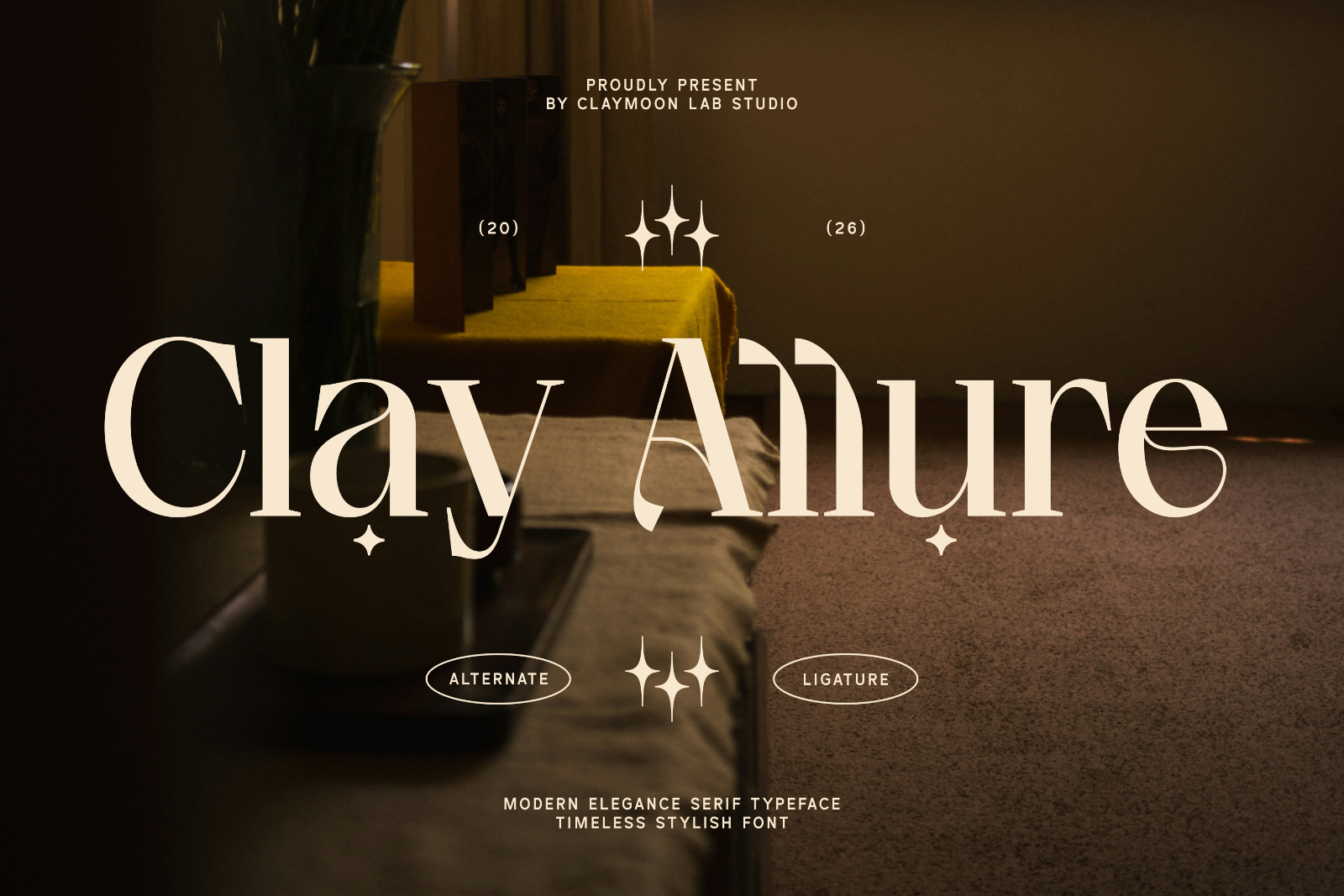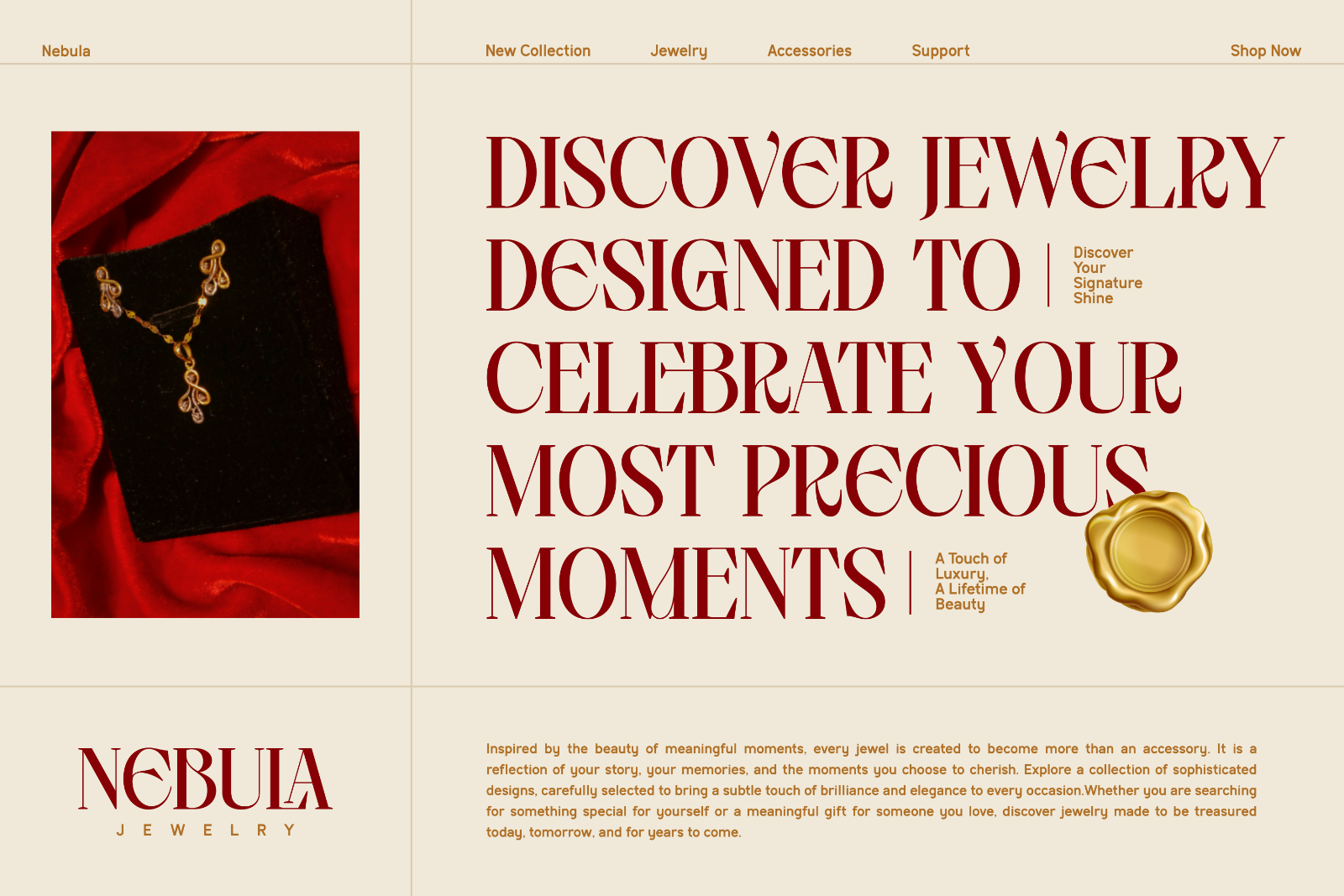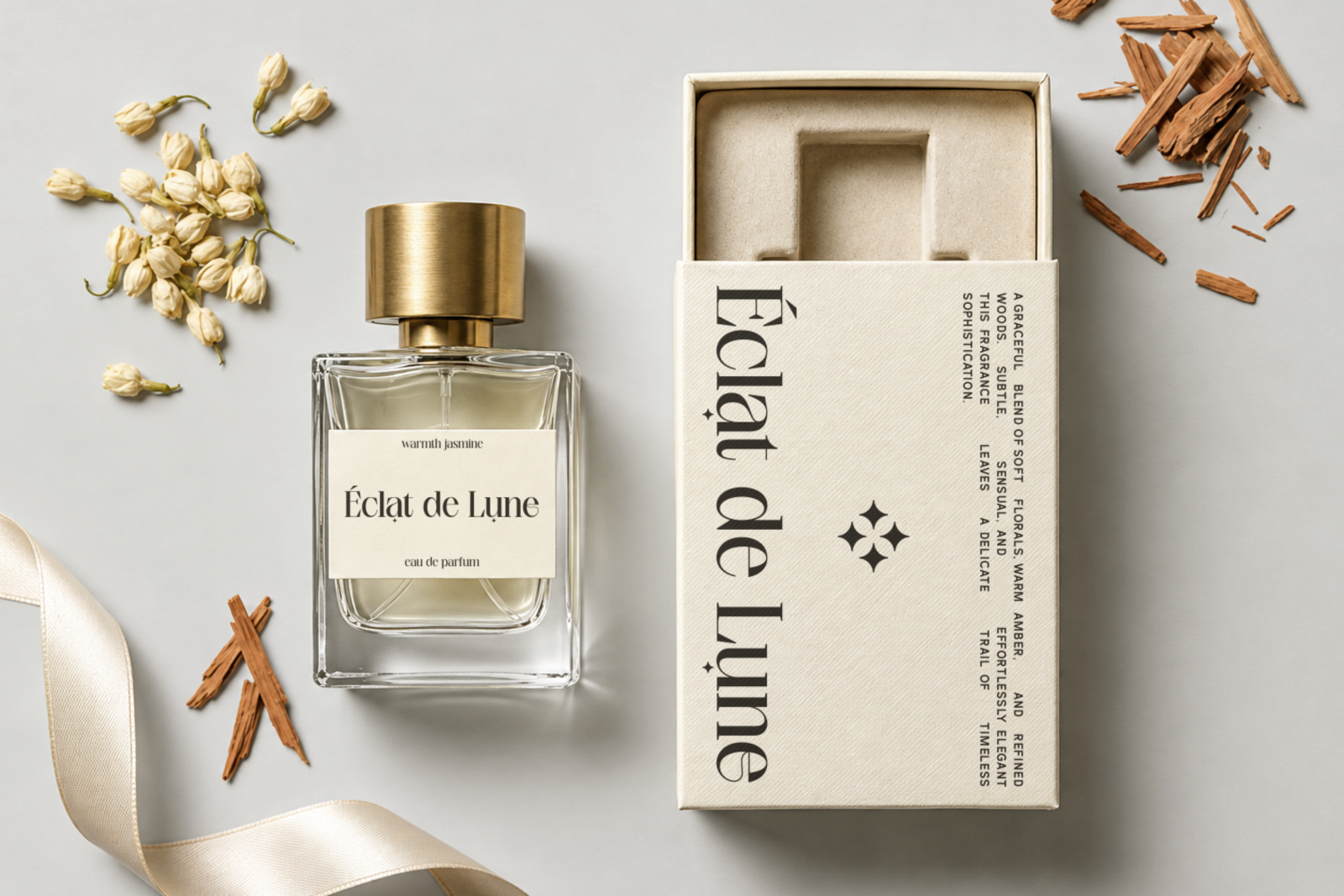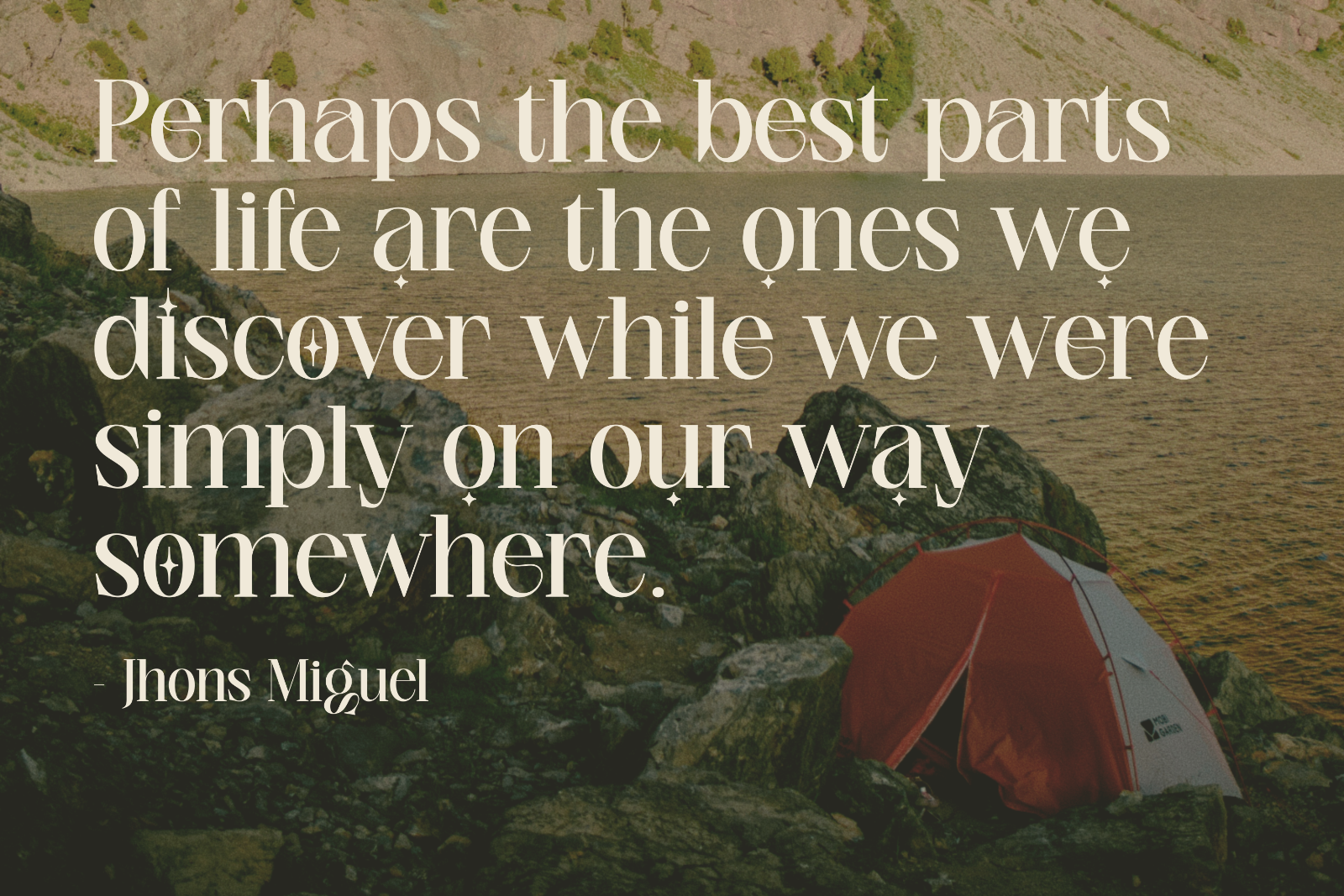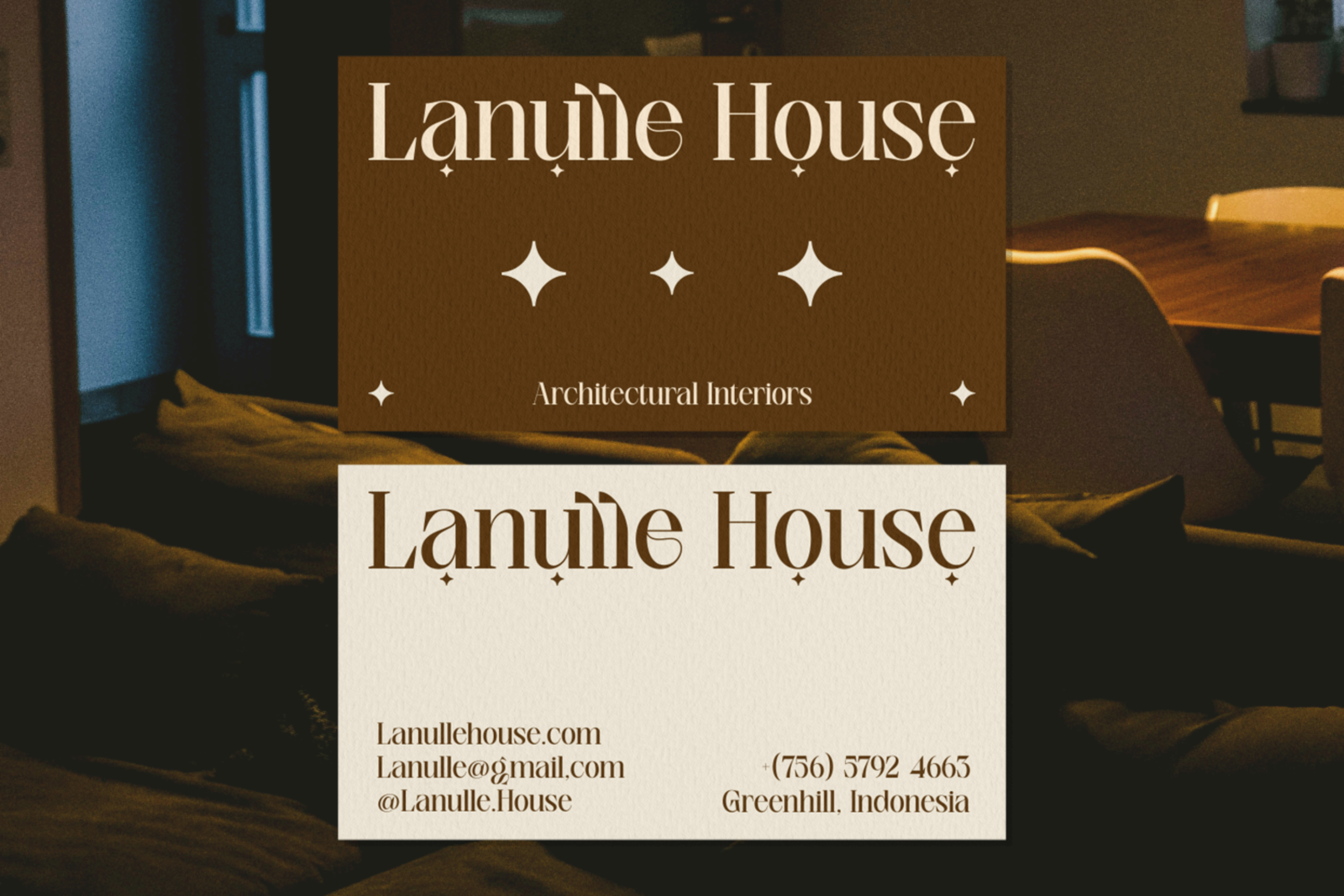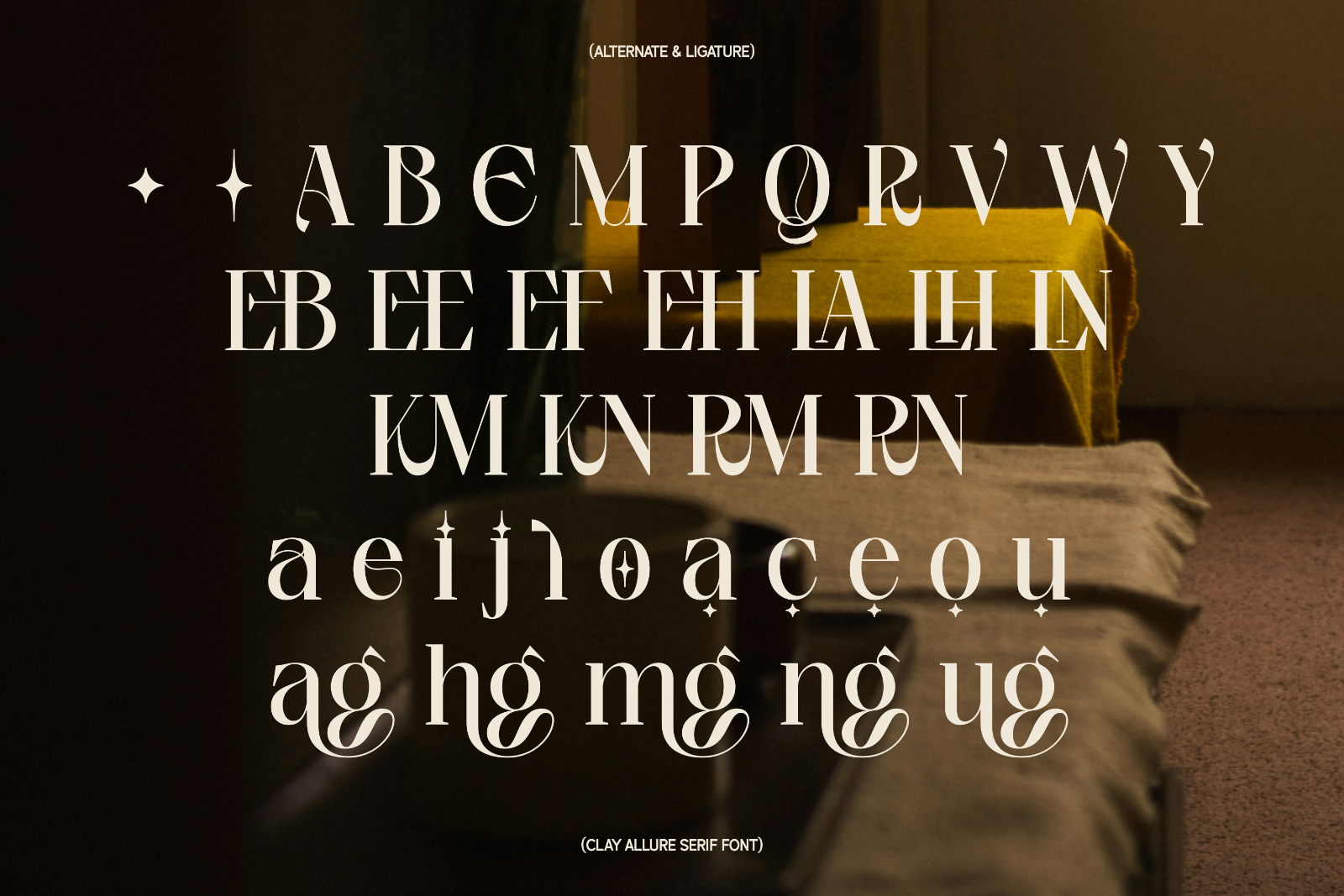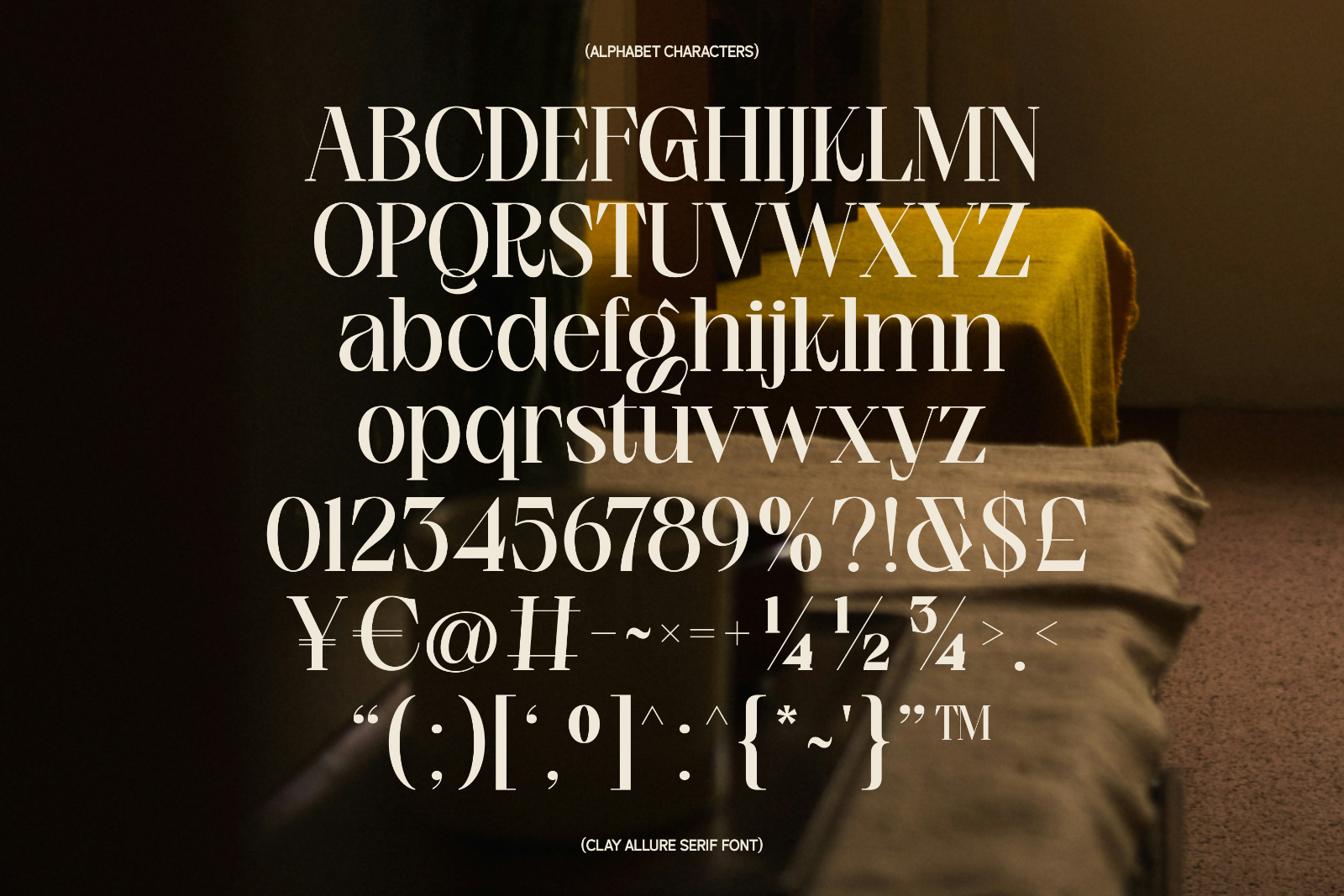
Clay Allure — Modern Elegance Serif Font
Introduce a touch of sophisticated beauty to your creative projects with Clay Allure, a modern elegance serif typeface designed to radiate timeless style. Featuring delicate curves, graceful proportions, and a highly refined aesthetic, this premium font adds a luxurious feel to any design. Its classy characteristics make it the perfect typographic choice for projects that require an exclusive and high-end visual presence.
Crafted with meticulous attention to detail, this versatile serif truly shines in editorial and branding layouts. Whether you are composing typography for a prestigious lifestyle magazine, designing a visual identity for a luxury jewelry brand, creating elegant perfume packaging, or crafting sophisticated business cards for an architectural firm, this font will elevate your aesthetic to the next level.
- Full Character Set: Comprehensive uppercase, lowercase, numerals, fractions, and standard punctuation.
- Alternates & Ligatures: Equipped with beautiful ligatures and stylish alternate characters for custom, decorative typography variations.
Perfect For These Projects:
- Luxury & Boutique Branding: Designing stunning visual identities for prestigious jewelry brands, high-end fashion boutiques, and premium cosmetics.
- Elegant Packaging Design: Creating captivating typography for perfume boxes, beauty product labels, and luxurious gift packaging.
- Editorial & Publication: Composing chic headlines for lifestyle magazines, aesthetic inspirational quotes, and classy book covers.
- Corporate Identity & Stationery: Designing sophisticated business cards and letterheads for architecture firms, interior design studios, or creative agencies.
- Custom Digital Typography: Building unique lettering art, custom logotypes, and aesthetic social media graphics utilizing the beautiful ligatures and alternates.